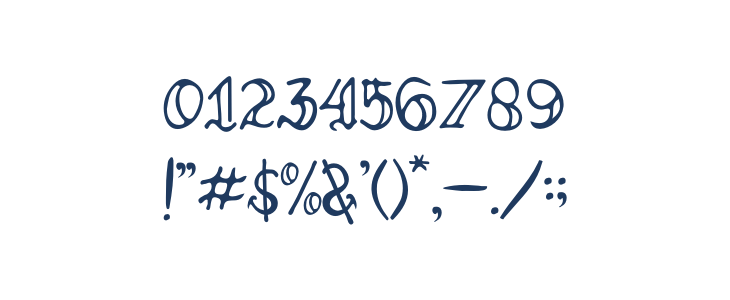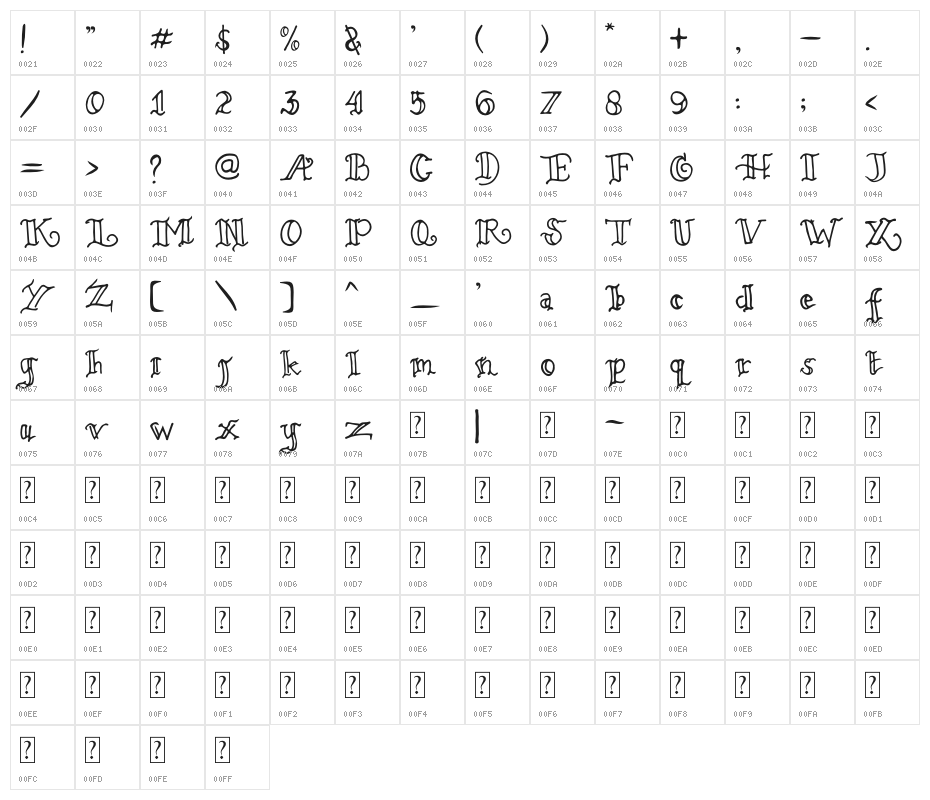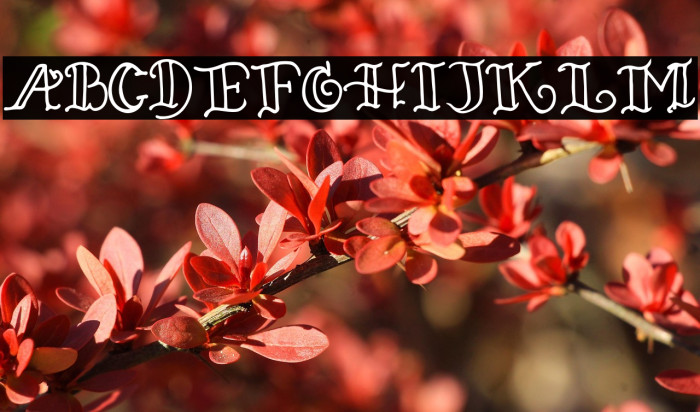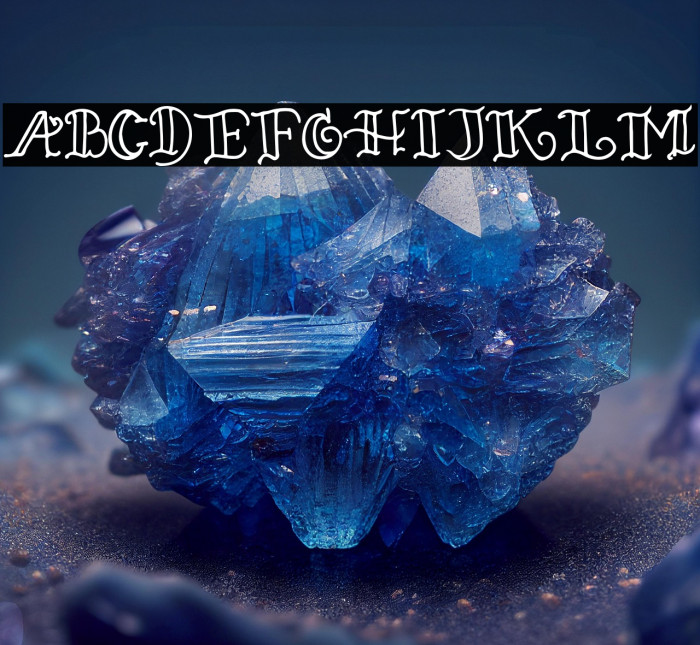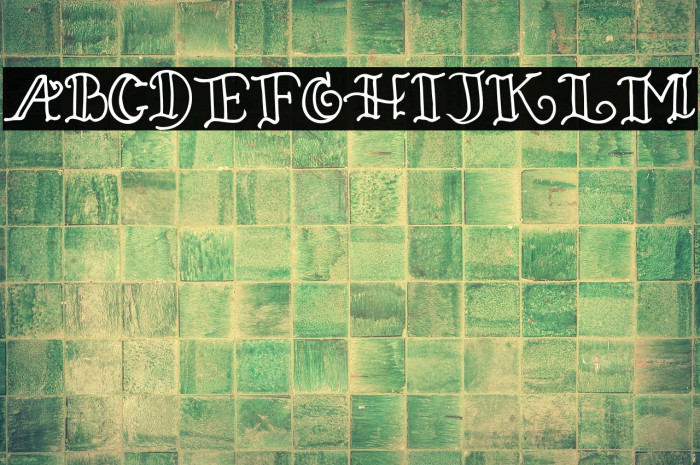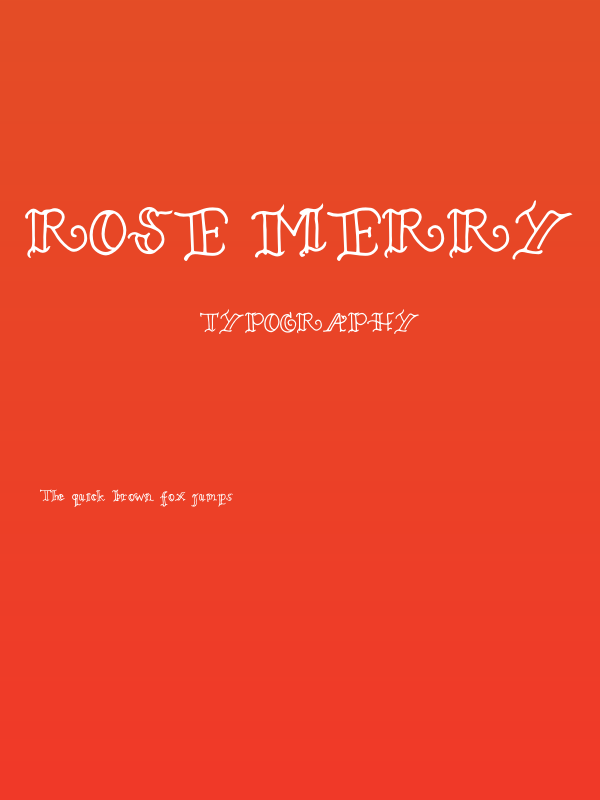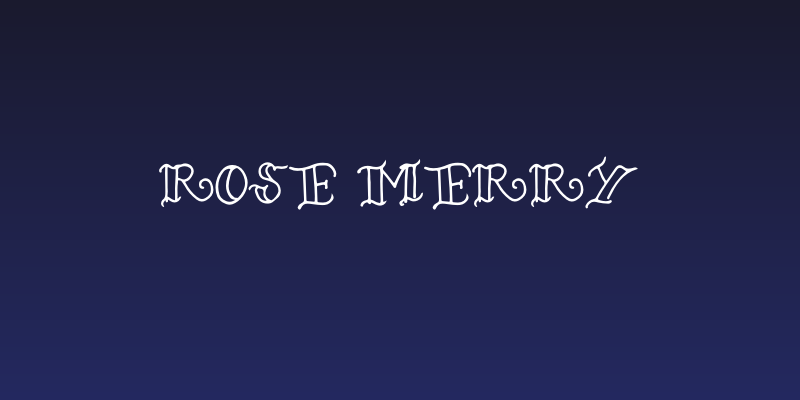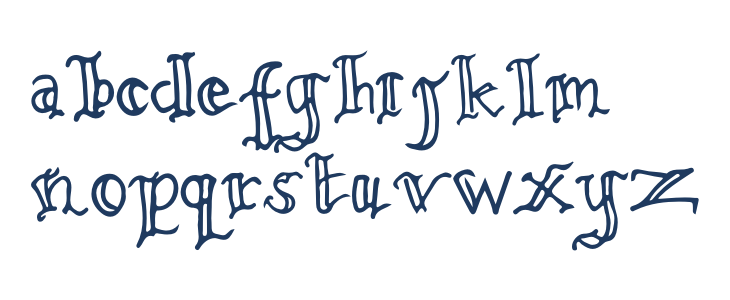
ROSE MERRY Font
ROSE MERRY Description
This font features a whimsical and playful design with a hand-drawn aesthetic. The letters have a unique, irregular shape with varying stroke widths, giving them a lively and dynamic appearance. The uppercase letters are bold and slightly tilted, adding to the quirky charm. The lowercase letters maintain the same playful style, with some characters featuring exaggerated loops and curves. The numbers and special characters follow the same design principles, ensuring consistency throughout. This font is perfect for projects that require a fun and informal touch.
| Proposed Projects | Ideal for children's books, greeting cards, playful branding, and creative posters. |